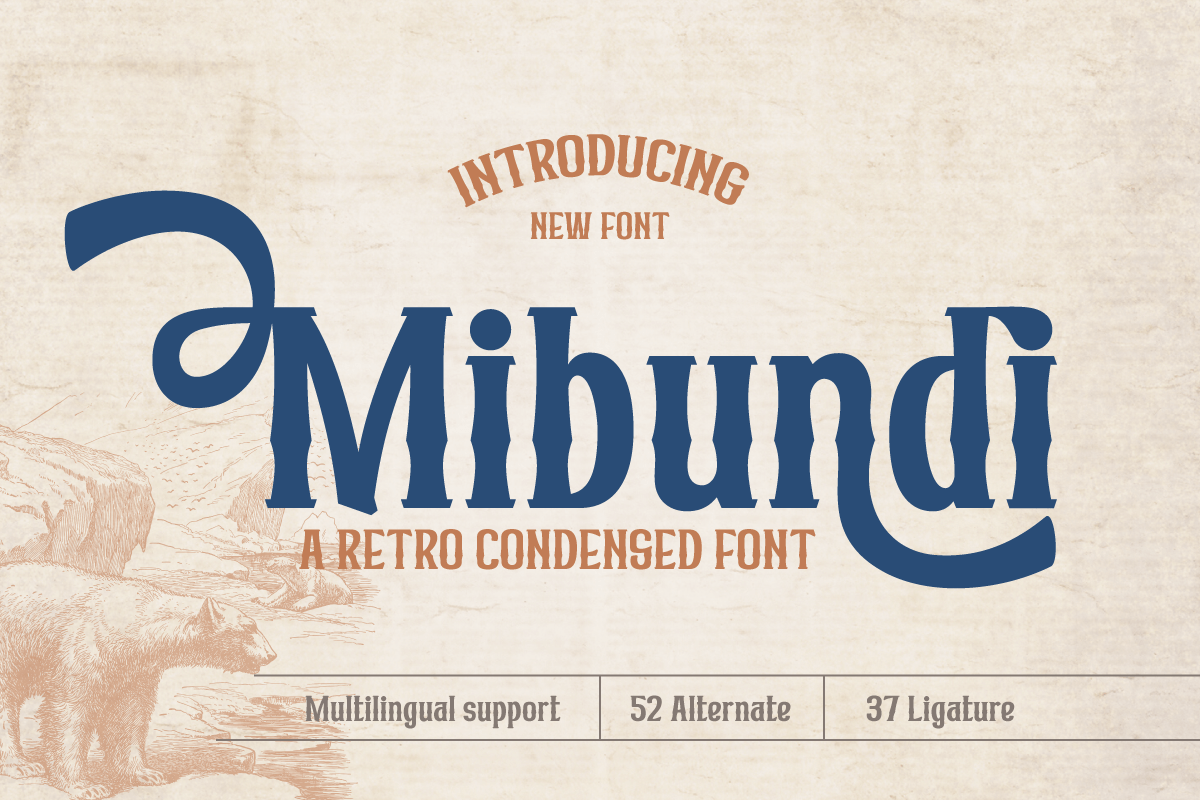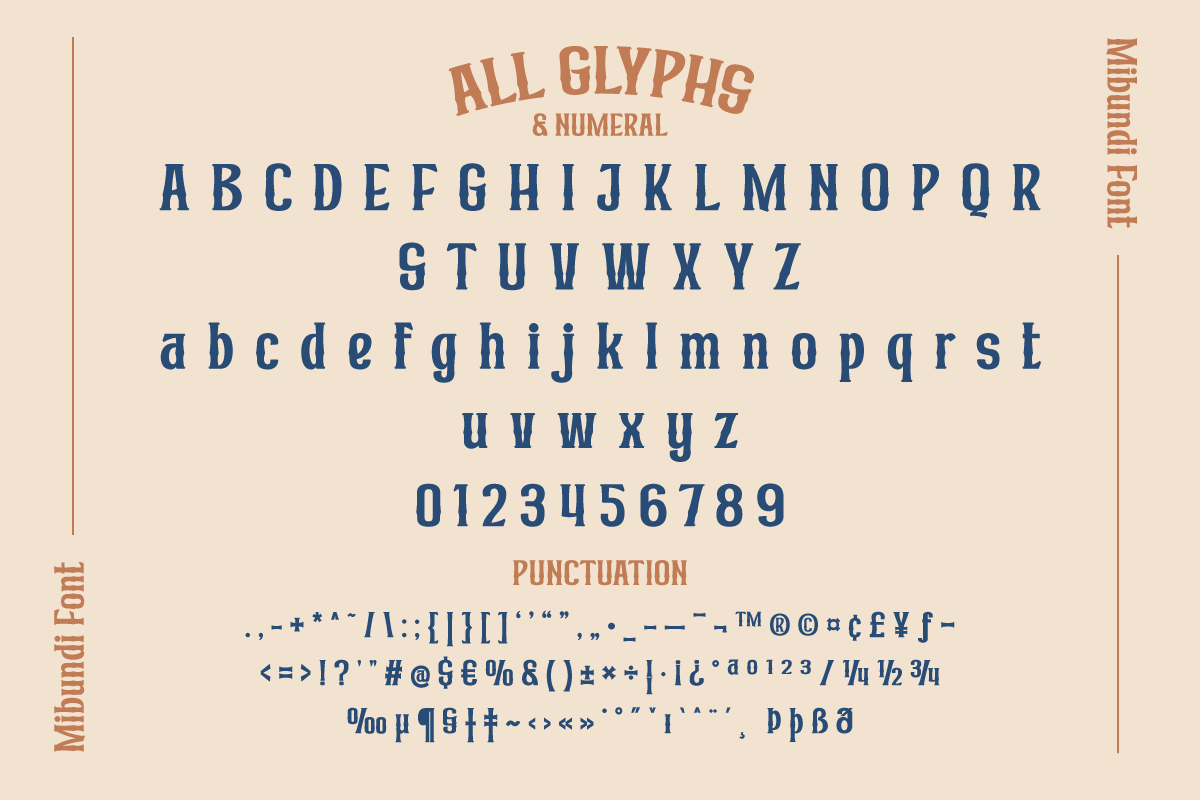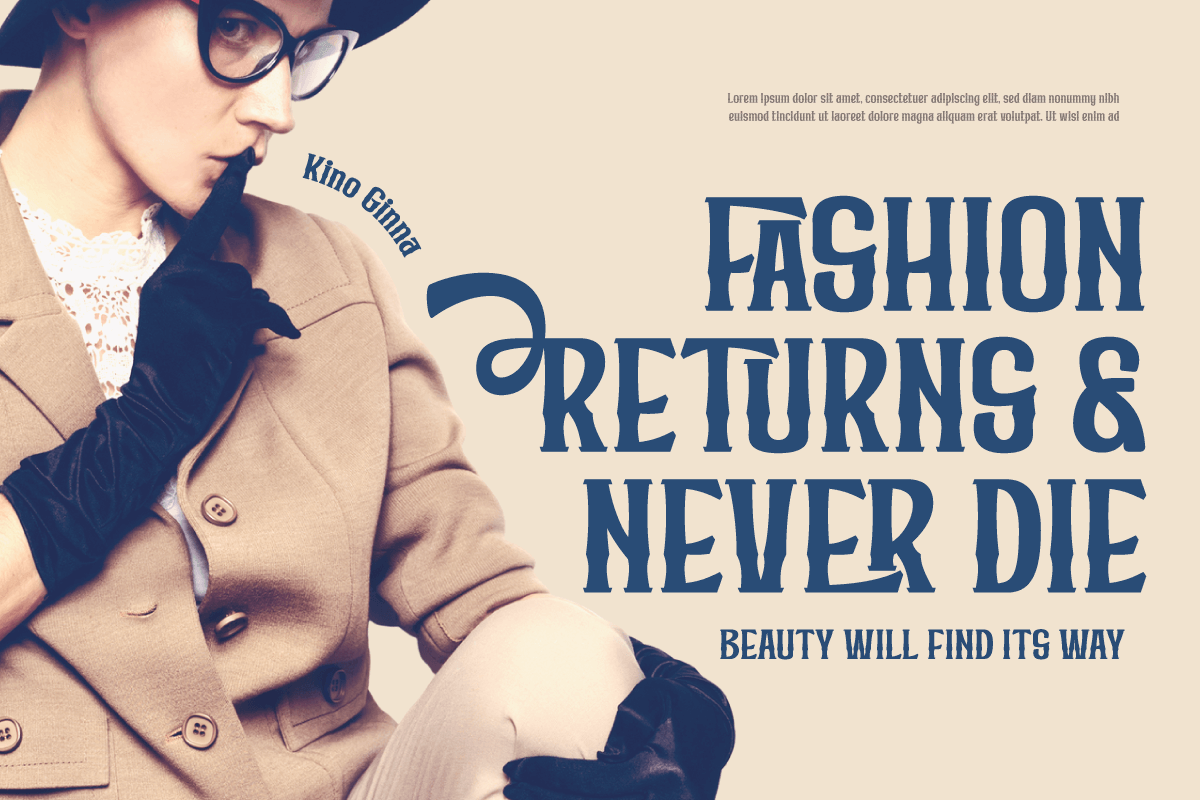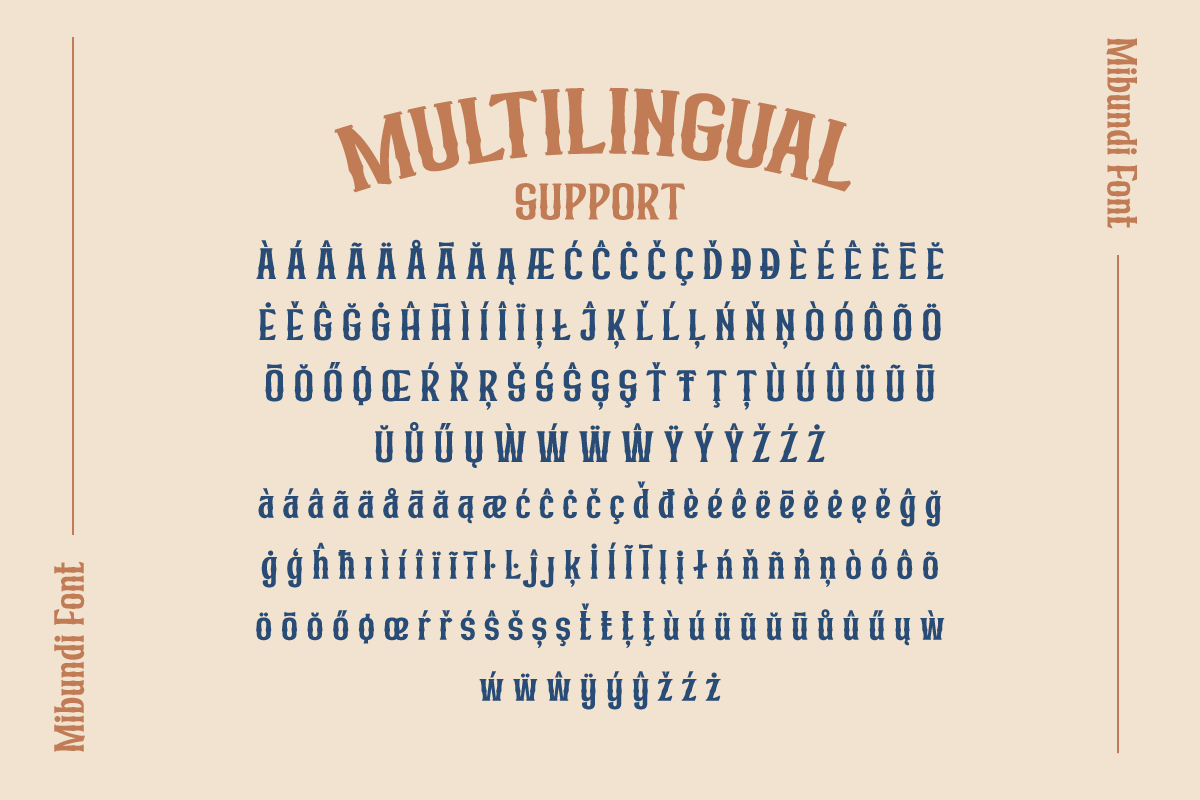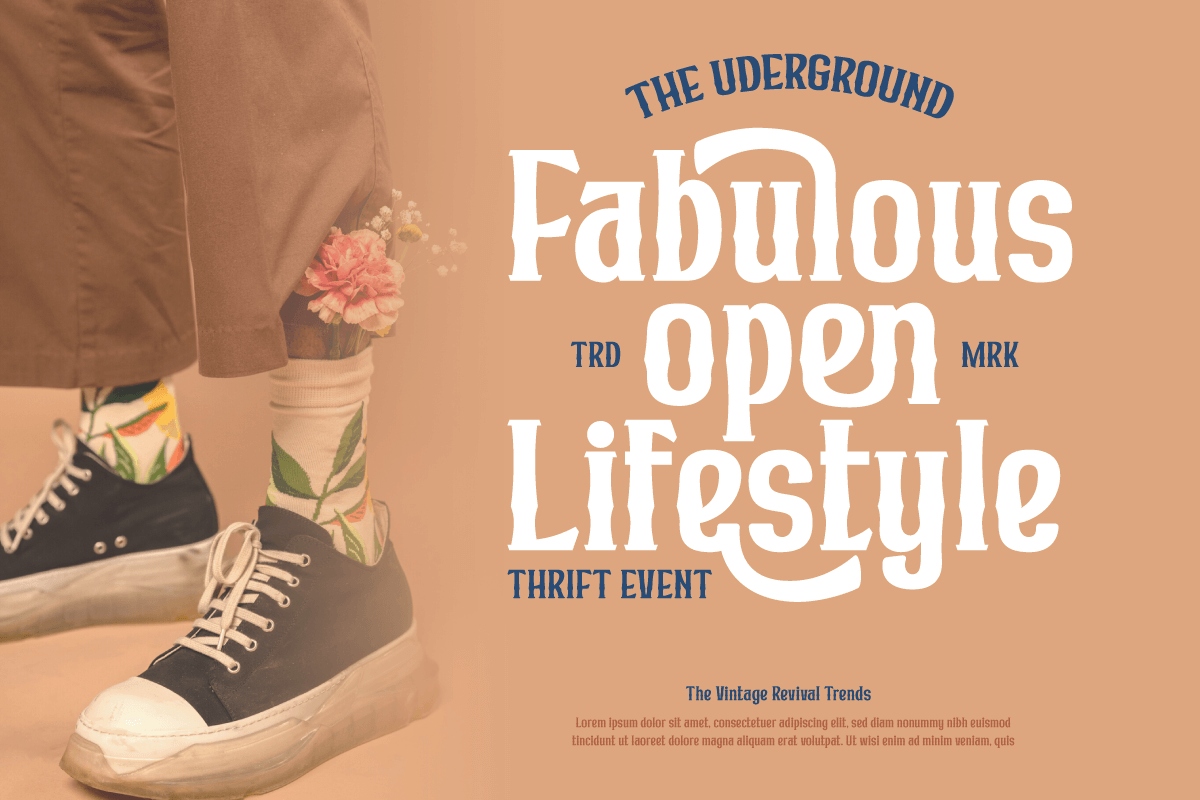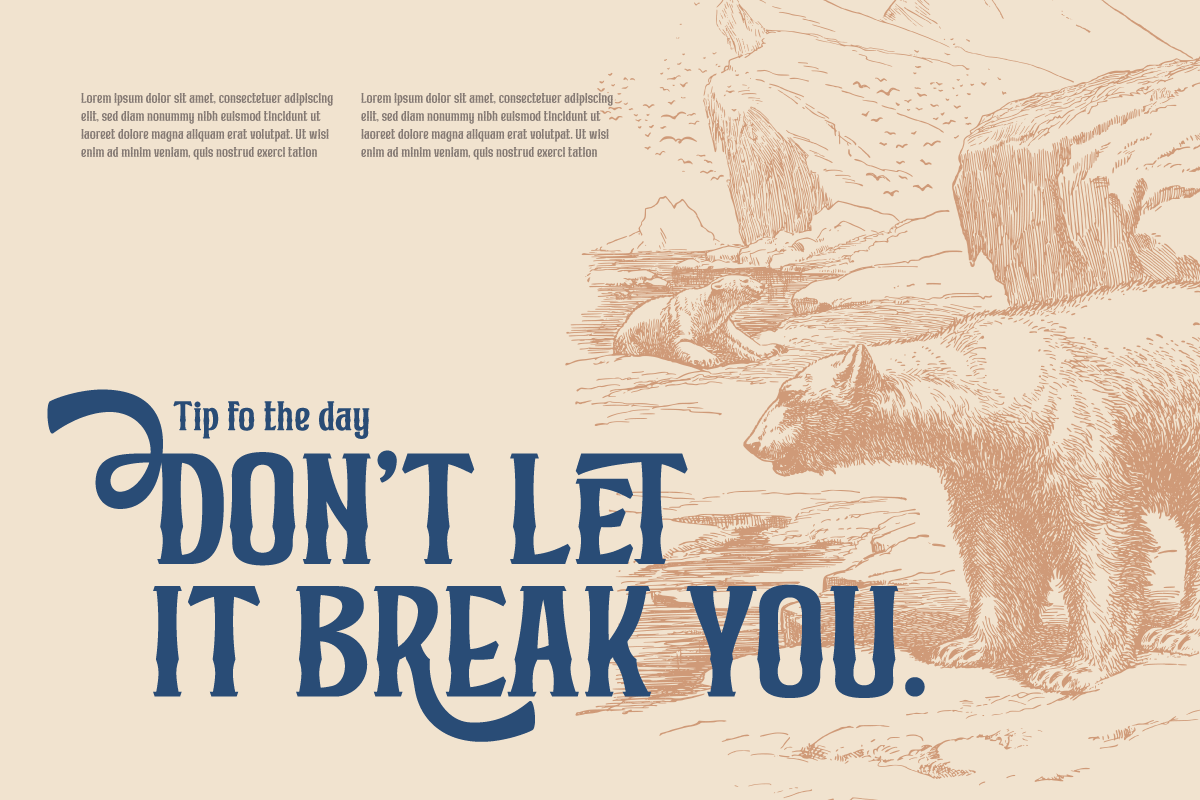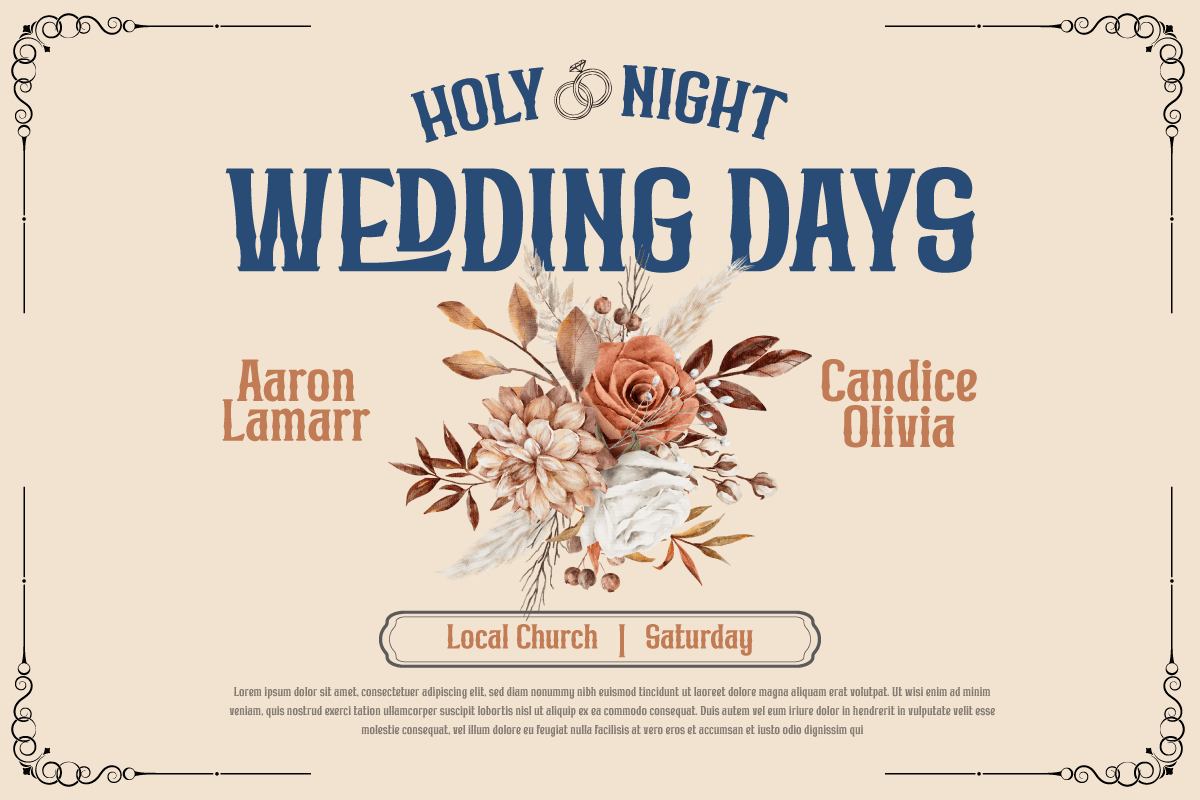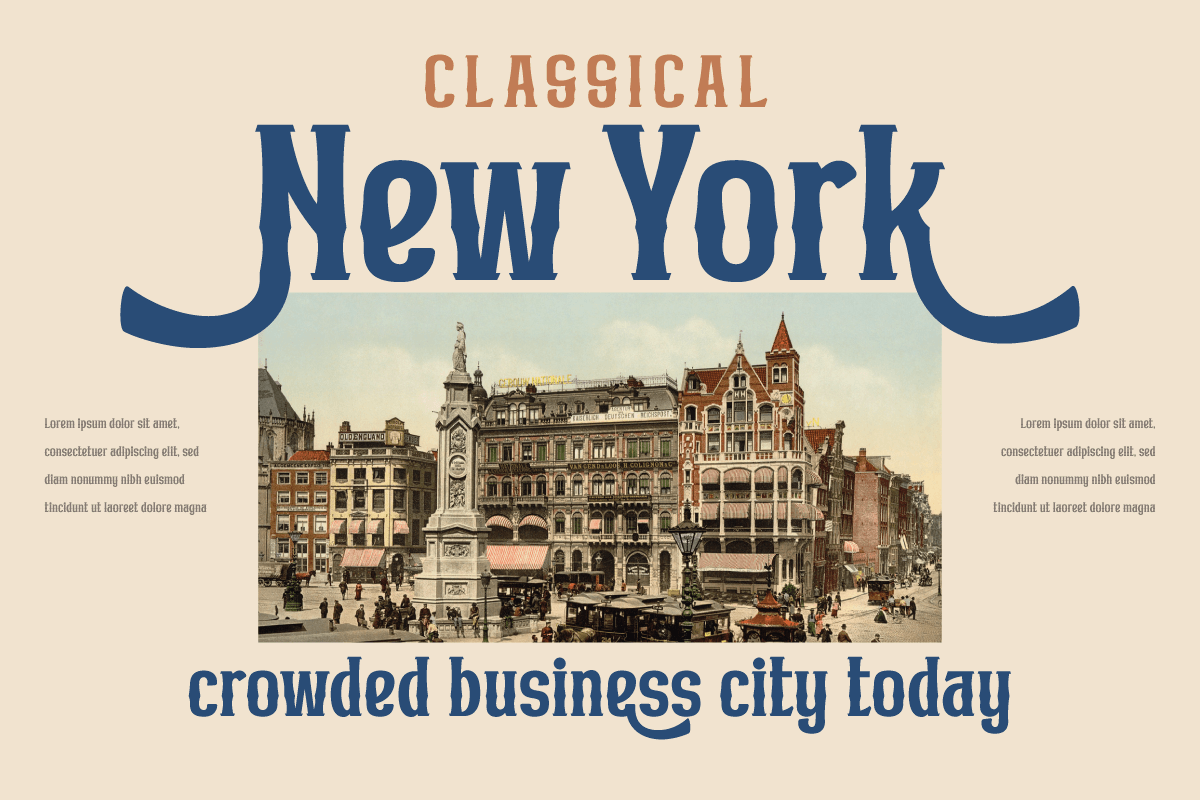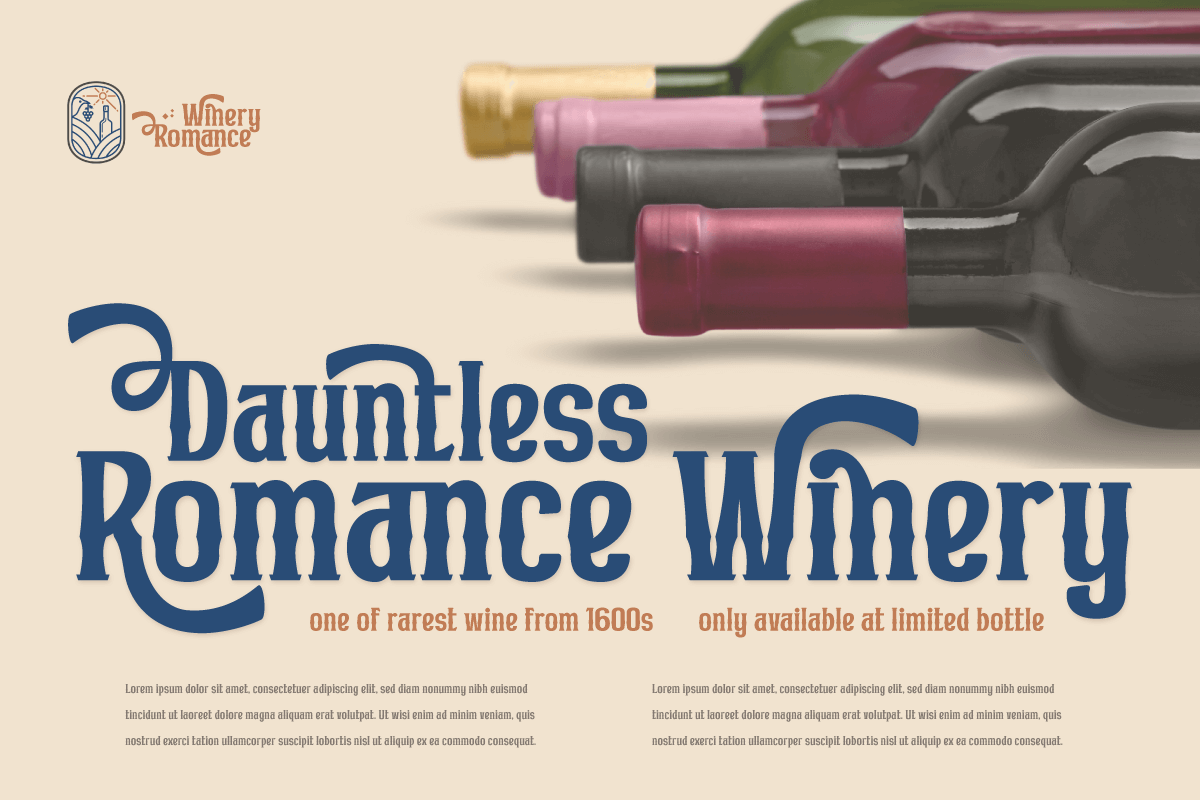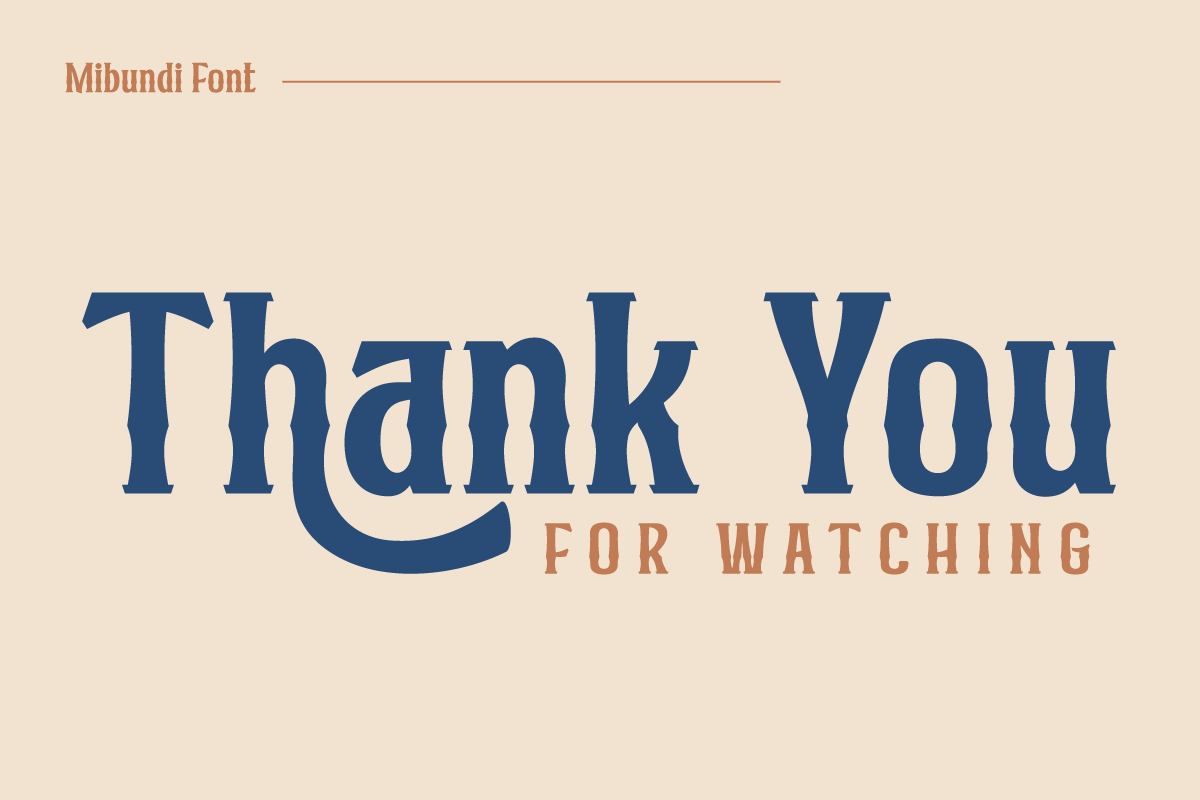
Mibundi | Retro Condensed Font
Mibundi is ideal for applications that require a classic, retro, vintage, or condensed look. This font’s ligature, alternative, and multilingual capabilities provide you the flexibility and creativity you need to convey your thoughts perfectly.
Mibundi is a handcrafted font with unique and eye-catching letter shapes that will bring the finishing touch to your project. The compact design makes it suitable for use in a wide range of media, from print to digital.
Mibundi also supports multilingualism, ensuring that this typeface can be used easily over the world. Using this typeface will undoubtedly capture the attention of potential customers and deliver significant value for your project.